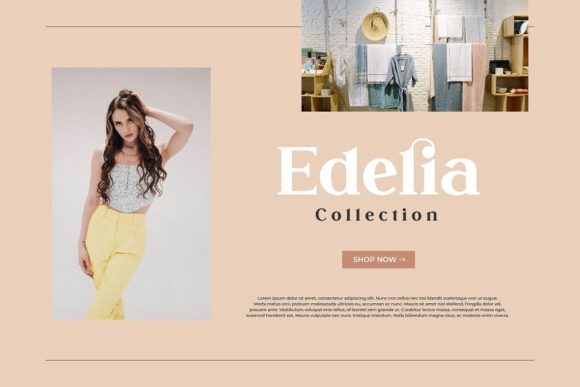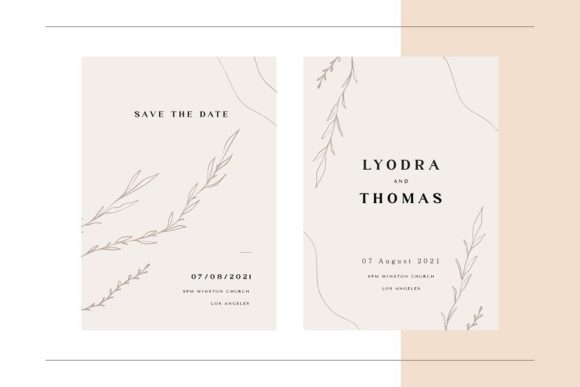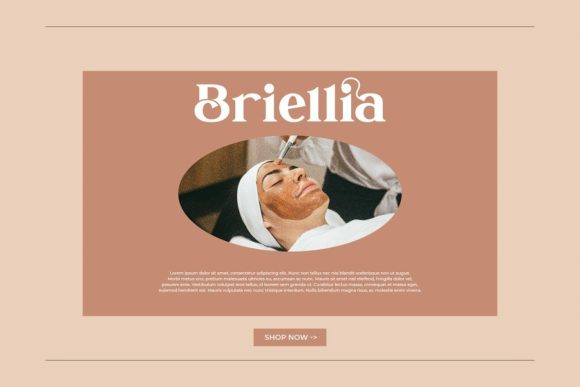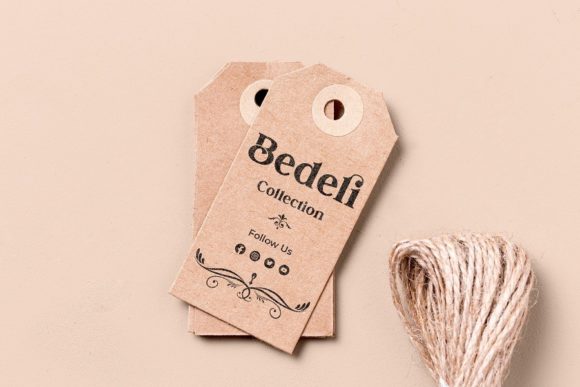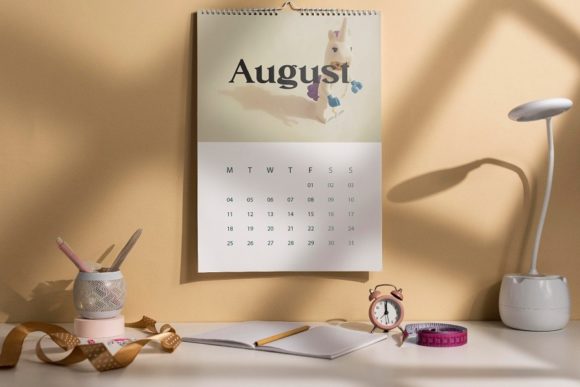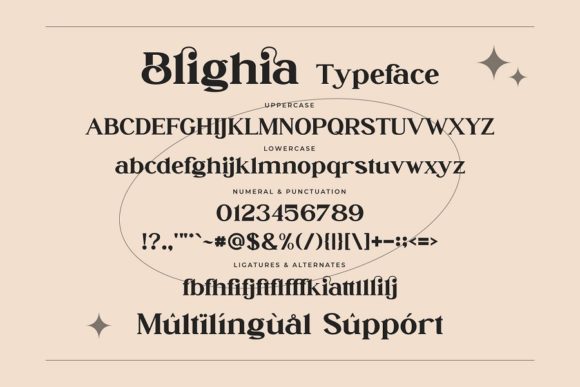
Introducing Blighia Font: Elevate Your Designs with Luxury and Sophistication
In the world of typography, fonts play a crucial role in conveying the tone and personality of a design. For designers and crafters looking to add a touch of luxury and sophistication to their projects, Blighia Font is an excellent choice. This thick lettered and trendy serif font is designed to make a statement, and in this article, we’ll explore its features, benefits, and uses.
What is Blighia Font?
Blighia Font is a modern serif font characterized by its bold and thick lettering. Its sleek design makes it perfect for adding a touch of elegance and sophistication to any design project. Whether you’re working on a branding project, packaging design, or marketing materials, Blighia Font is sure to make a lasting impression.
Key Features of Blighia Font
- Thick Lettered: Blighia Font features thick, bold lettering that commands attention and exudes confidence.
- Trendy Serif: The font’s serif design gives it a modern and trendy feel, making it perfect for designs that require a touch of sophistication.
- Luxury Spark: Blighia Font adds a luxury spark to any design project, making it ideal for high-end branding, packaging, and marketing materials.
- Versatile: The font is versatile and can be used in various design projects, from digital designs to print materials.
Benefits of Using Blighia Font
Using Blighia Font in your design projects offers several benefits, including:
- Instant Recognition: The font’s bold and thick lettering ensures instant recognition, making it perfect for headlines, titles, and emphasis text.
- Professional Look: Blighia Font gives your designs a professional and polished look, making it ideal for businesses and brands looking to establish a strong visual identity.
- Emotional Connection: The font’s luxurious feel can help create an emotional connection with your audience, making it perfect for designs that require a touch of sophistication and elegance.
How to Use Blighia Font in Your Designs
Using Blighia Font in your designs is easy and straightforward. Here are some tips to get you started:
- Pair it with Other Fonts: Pair Blighia Font with other fonts to create a unique and visually appealing typography.
- Use it for Headlines: Use Blighia Font for headlines and titles to add emphasis and create a lasting impression.
Design Ideas Using Blighia Font
Blighia Font can be used in various design projects, including:
- Branding: Use Blighia Font to create a strong and luxurious brand identity.
- Packaging Design: Add a touch of sophistication to your packaging design with Blighia Font.
- Marketing Materials: Use Blighia Font in your marketing materials, such as brochures, flyers, and posters, to create a lasting impression.
- Digital Designs: Use Blighia Font in your digital designs, such as website headers, social media graphics, and email templates.
In conclusion, Blighia Font is a versatile and luxurious serif font that can elevate your designs to the next level. Its thick lettered and trendy design makes it perfect for adding a touch of sophistication and elegance to any design project. With its instant recognition, professional look, and emotional connection, Blighia Font is an excellent choice for designers and crafters looking to create stunning designs. So why wait? Add Blighia Font to your favorite creations and let yourself be amazed by the outcome generated.